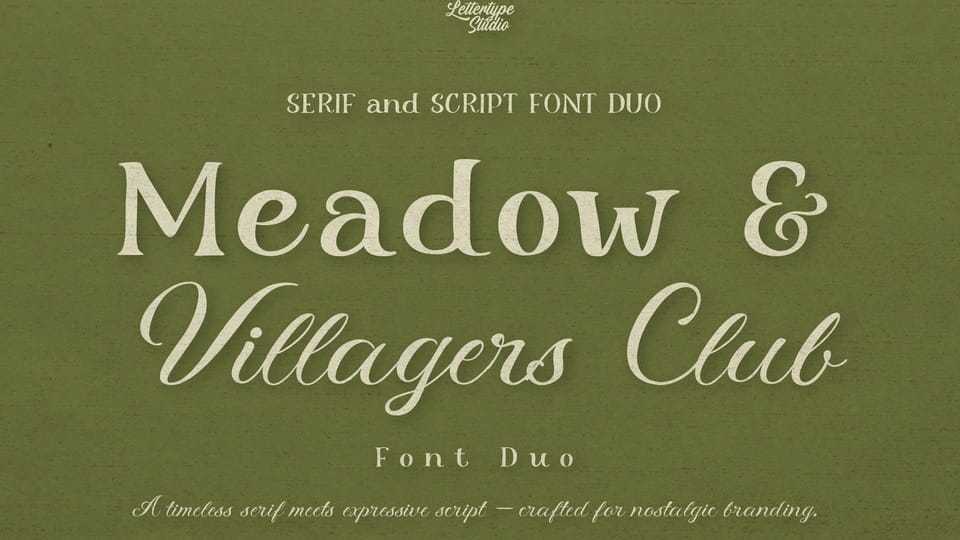
Download Meadow & Villager Club, a thoughtfully crafted font duo that blends a refined vintage serif with a natural, expressive script. Designed to evoke a sense of nostalgia and warmth, this pairing captures the essence of countryside living